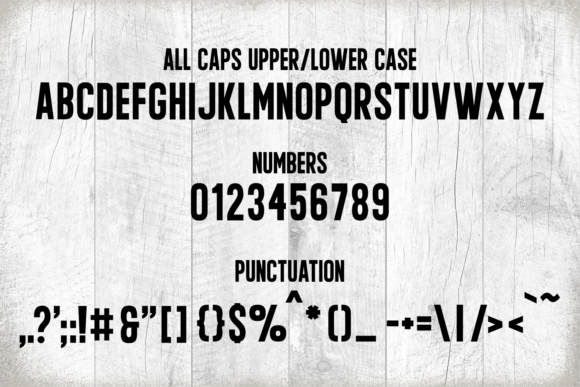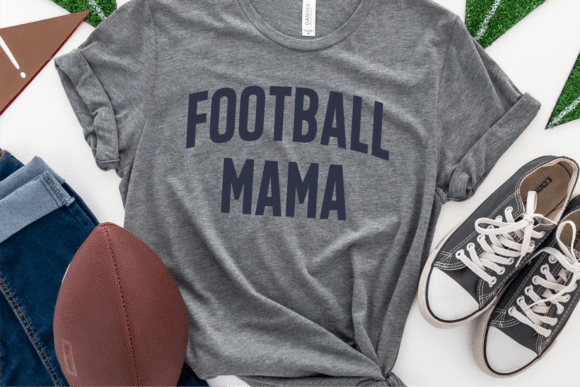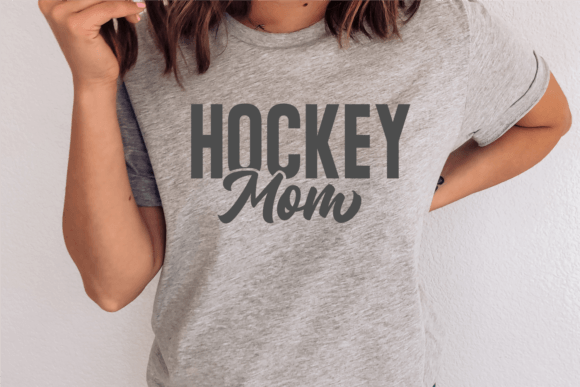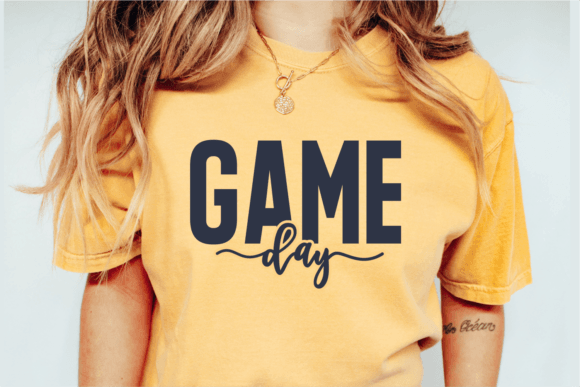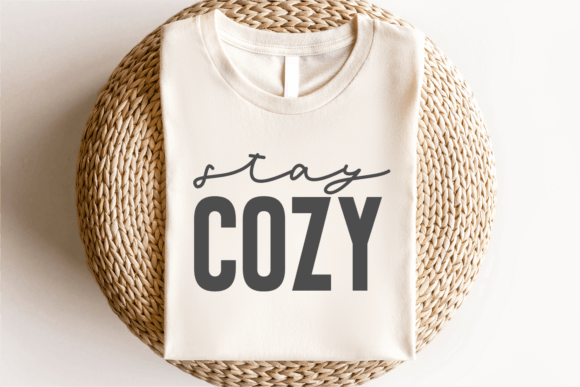
Creating Something from Scratch
As a crafter, there’s nothing quite like the rush of excitement you get when you’re brainstorming a new project. You’re sipping your morning coffee, scrolling through your favorite design inspiration boards, and suddenly, an idea strikes – a fresh take on a classic book cover, a unique layout for a magazine spread, or a clever way to make your social media posts stand out. Whatever it is, you can’t wait to get creative and bring it to life.
That’s where the Basic Tee Font comes in – a simple yet effective sans-serif font designed specifically for crafters like you. Its minimalist and clean vibe makes it the perfect addition to any design project, from book covers to invitations, and everything in between. With Basic Tee Font, you can focus on what matters most – your creativity and vision.
Basic Tee Font Key Features
- Font Style: Basic Tee Font is a sans-serif font, known for its clean and simple design.
- Unique Characteristics: Features a distinctive, rounded edge design that makes it easy to read and recognize, even at small font sizes.
Designer Review: Basic Tee Font
Overall, I think the Basic Tee Font is a decent option for body text. ✨ The font’s clean lines and simple design make it easy to read, and it’s great for websites and digital products where legibility is key. It’s also a great choice for small to medium-sized text, as it doesn’t get too overwhelming or difficult to read.
One of the things I appreciate about the Basic Tee Font is its versatility. ✨ It comes in a range of weights, from light to bold, which makes it easy to use in different contexts. It also has a clear and modern feel to it, which makes it a great choice for minimalist designs.
- ⚠️ The font may not be the best choice for headlines or large blocks of text, as it can get a bit bland and uninteresting.
- ⚠️ It may not be the best choice for traditional or formal designs, as it has a more modern and digital feel to it.
- ⚠️ The font’s design is quite straightforward, which may make it less interesting for designers who like to add a bit of flair or personality to their typography.
Overall, I think the Basic Tee Font is a solid choice for body text and digital products. While it may have some limitations, it’s a great option for designers who want a clean and simple font that’s easy to read and use.
Getting the Most Out of Basic Tee Font
To get the most out of Basic Tee Font, use it for short paragraphs or titles where a clean, simple font is desired. It’s ideal for minimalist designs or when you want to draw attention to a specific piece of text.
Basic Tee Font is commonly used for:
- Blog post titles
- Social media captions
- Product descriptions
- Minimalist designs